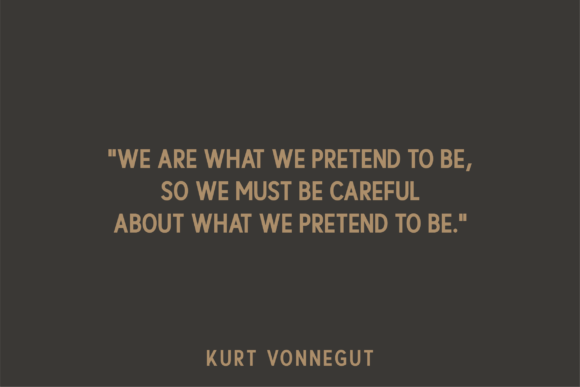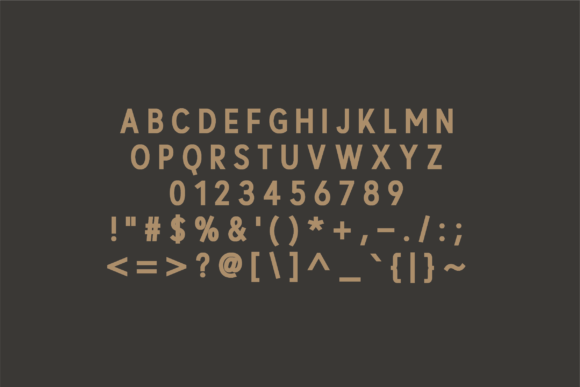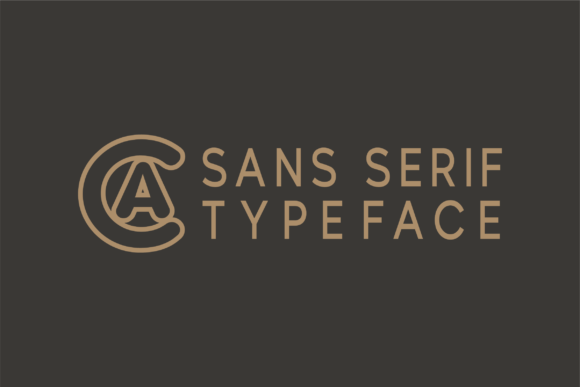
Introduction to Paradigm Font
Have you ever stared at a blank canvas, waiting for the perfect idea to strike? That’s exactly what happened to me when I discovered the Paradigm Font. As a designer, I’ve spent countless hours searching for the perfect font to elevate my creative projects. And let me tell you, Paradigm Font has been a game-changer.
With its modern and classy sans serif design, Paradigm Font is the perfect addition to any project. Whether it’s a wedding invitation, a quote, or an advertisement, this font brings a touch of sophistication and elegance to any design. And the best part? It’s incredibly versatile, making it a valuable resource for designers of all levels.
Key Features of Paradigm Font
- High-quality design resource ideal for creative projects, with a unique and modern aesthetic.
- Perfect for designers seeking a high-quality design resource that exudes sophistication and modernity, making it an excellent addition to any creative project.
Honest Review: Paradigm Font
I’ve had the chance to work with Paradigm Font on a few creative projects, and I must say it’s been a solid addition to my design resource arsenal. ✨
Here are some of the things I like about Paradigm Font:
- Works well with transparent backgrounds, adding an extra layer of sophistication to designs
- Not as versatile as some other fonts on the market, making it less suitable for certain types of projects
- ⚠️ Limited customization options, which may be a drawback for designers who like to get creative with their fonts
Overall, Paradigm Font is a solid choice for designers who need a high-quality font for their creative projects. While it may not be perfect, its strengths far outweigh its limitations, making it a great addition to any design resource library.
Tips for Getting the Most Out of Paradigm Font
To get the most out of Paradigm Font, use it in conjunction with a transparent background to create stunning designs. You can also experiment with different font sizes and styles to add visual interest to your project.
Paradigm Font is ideal for creative projects, such as graphic design, logo creation, and typography-based art. It’s also a great choice for designers who need a high-quality font with a transparent background for their designs.